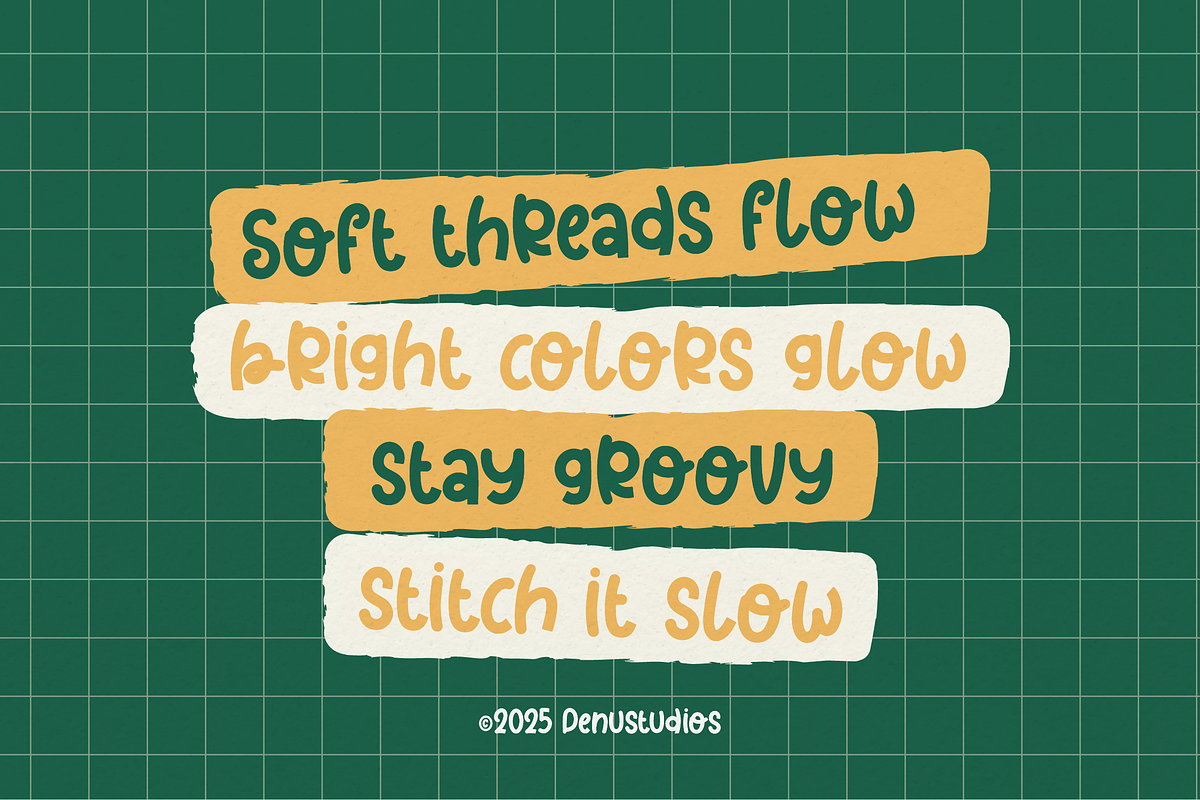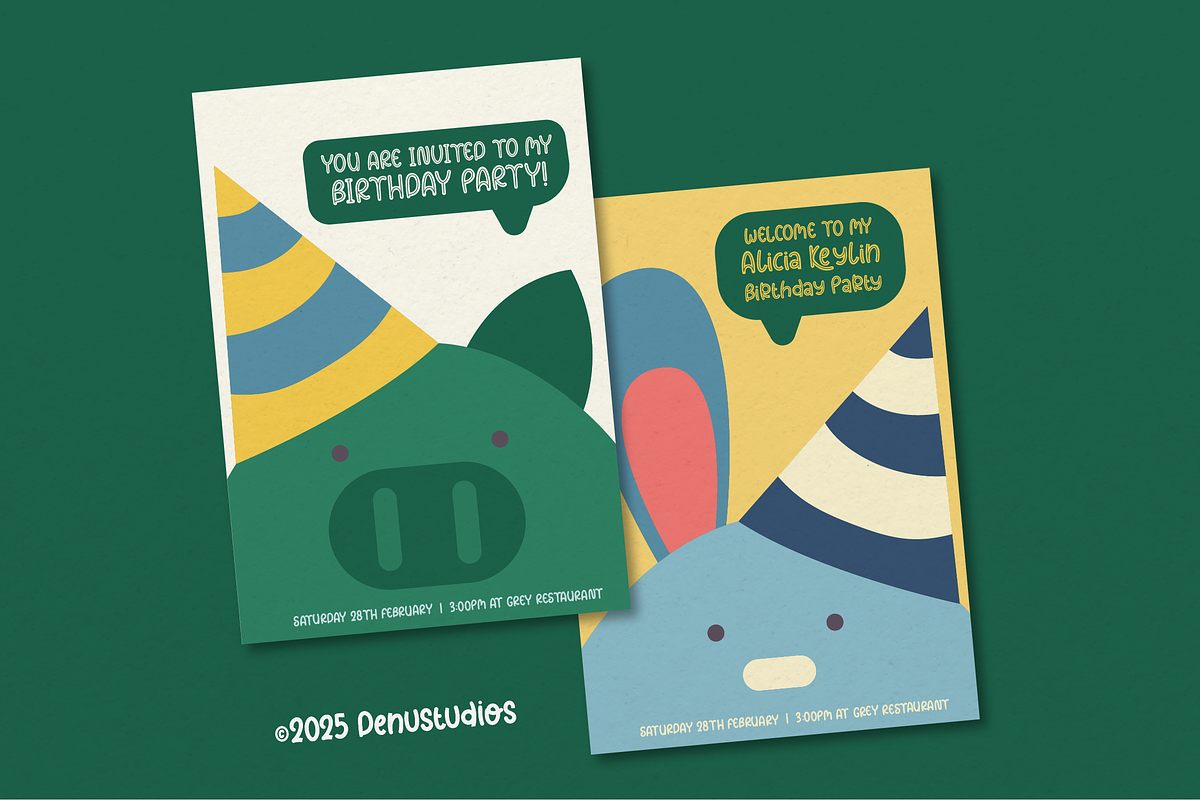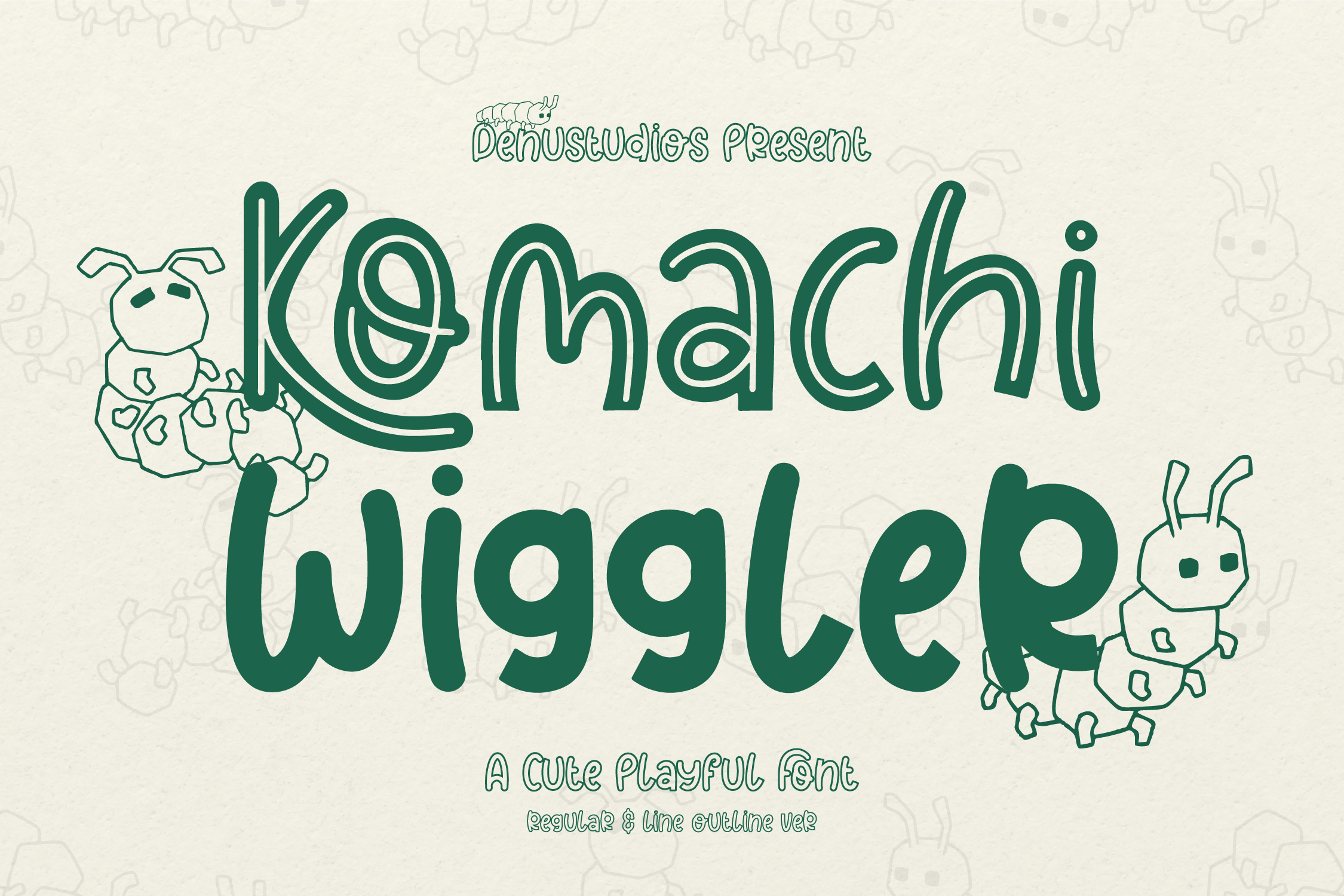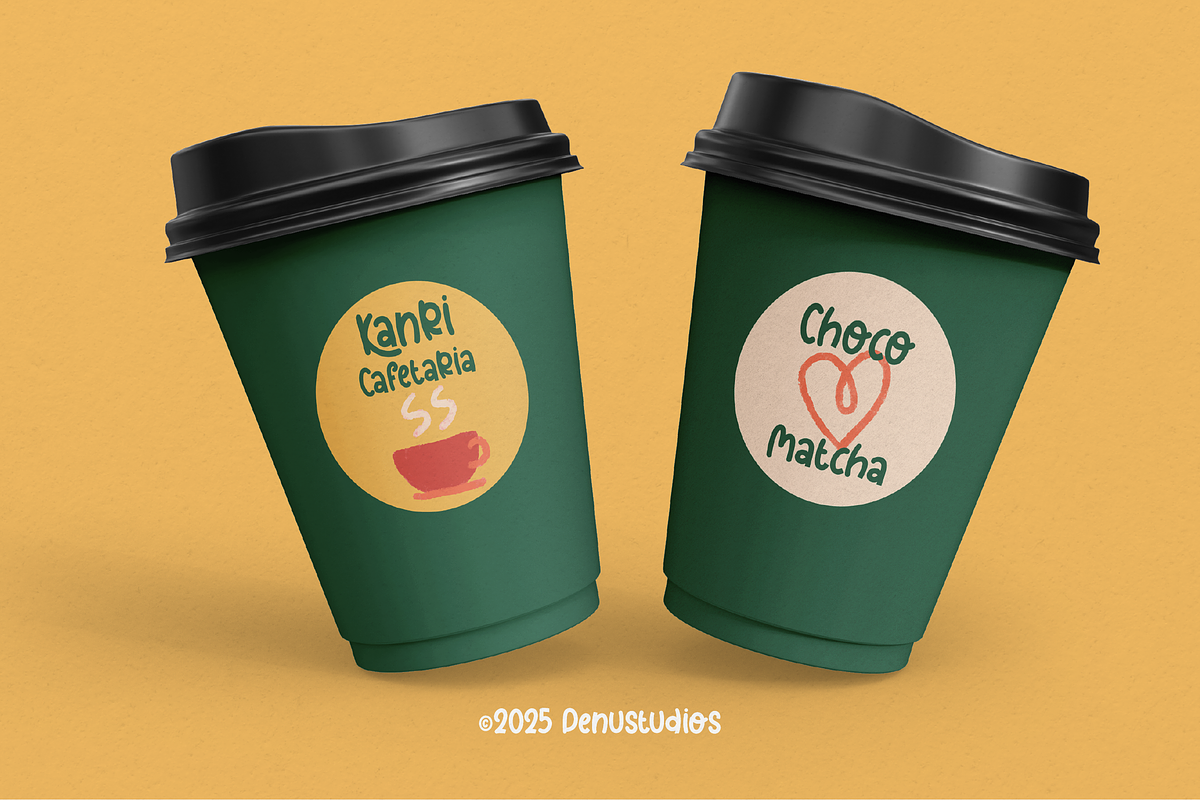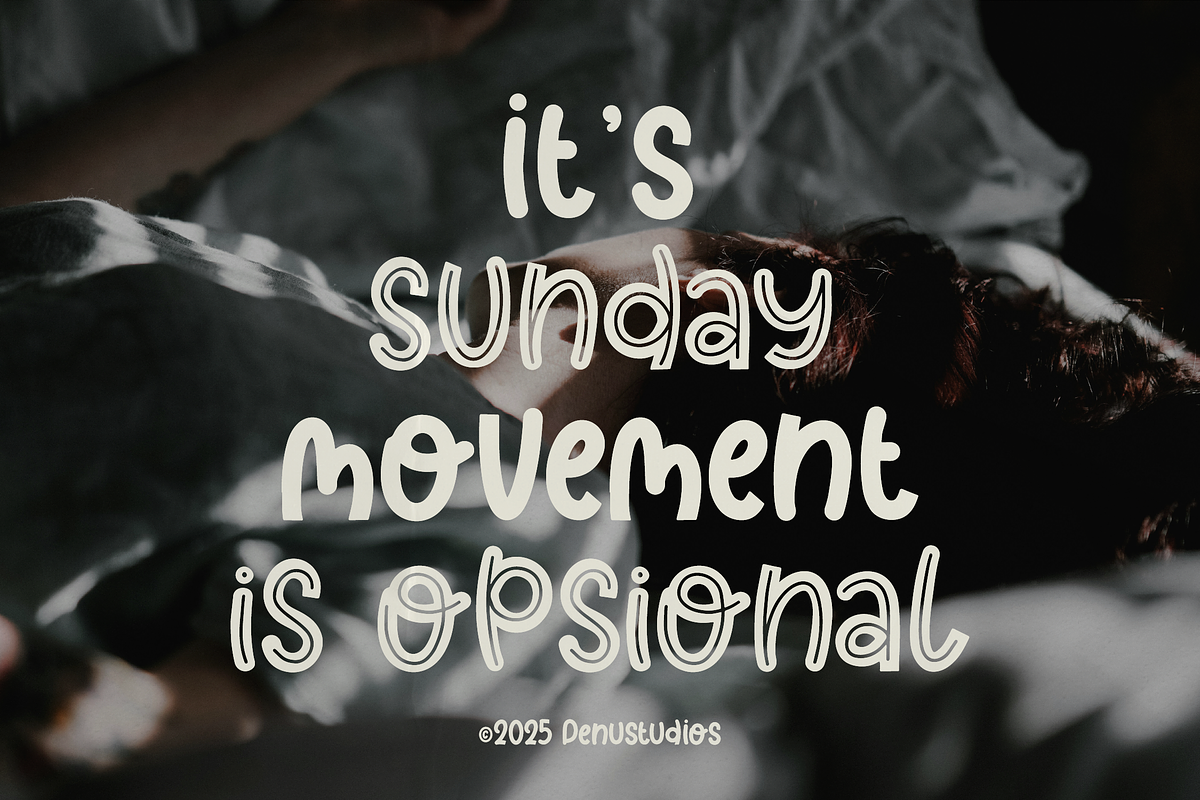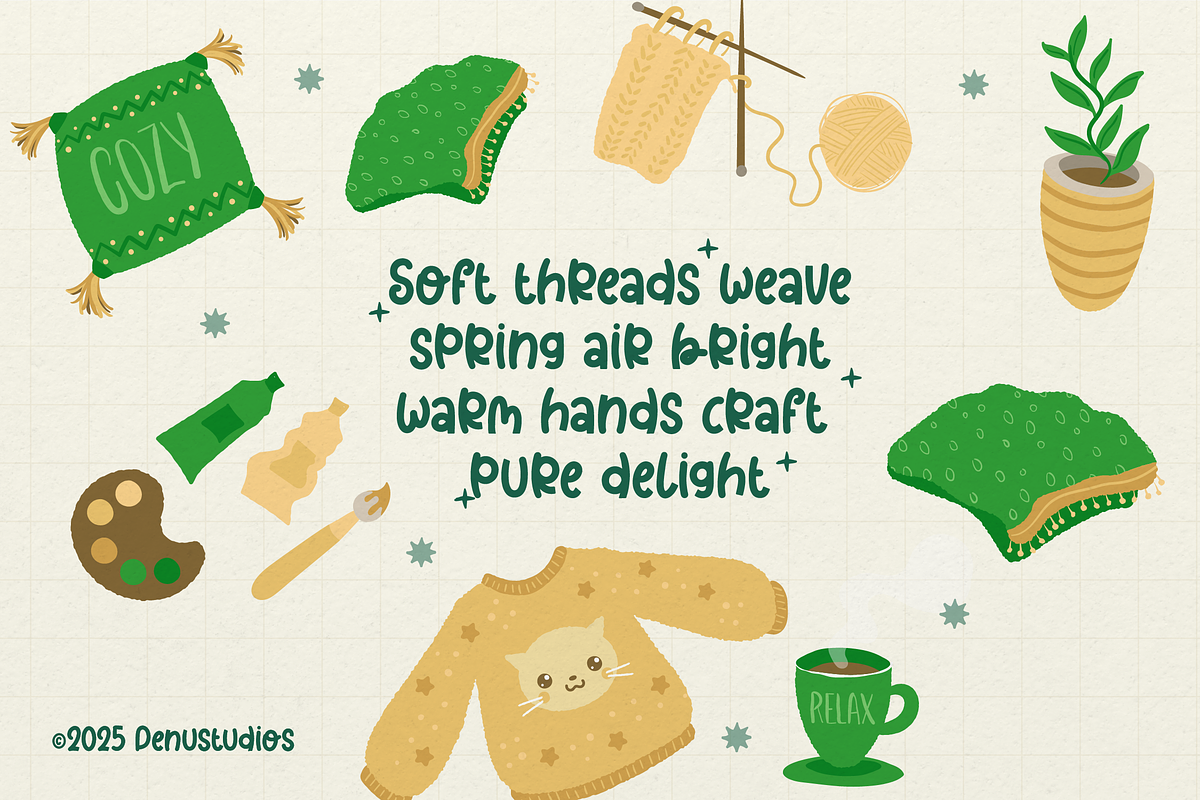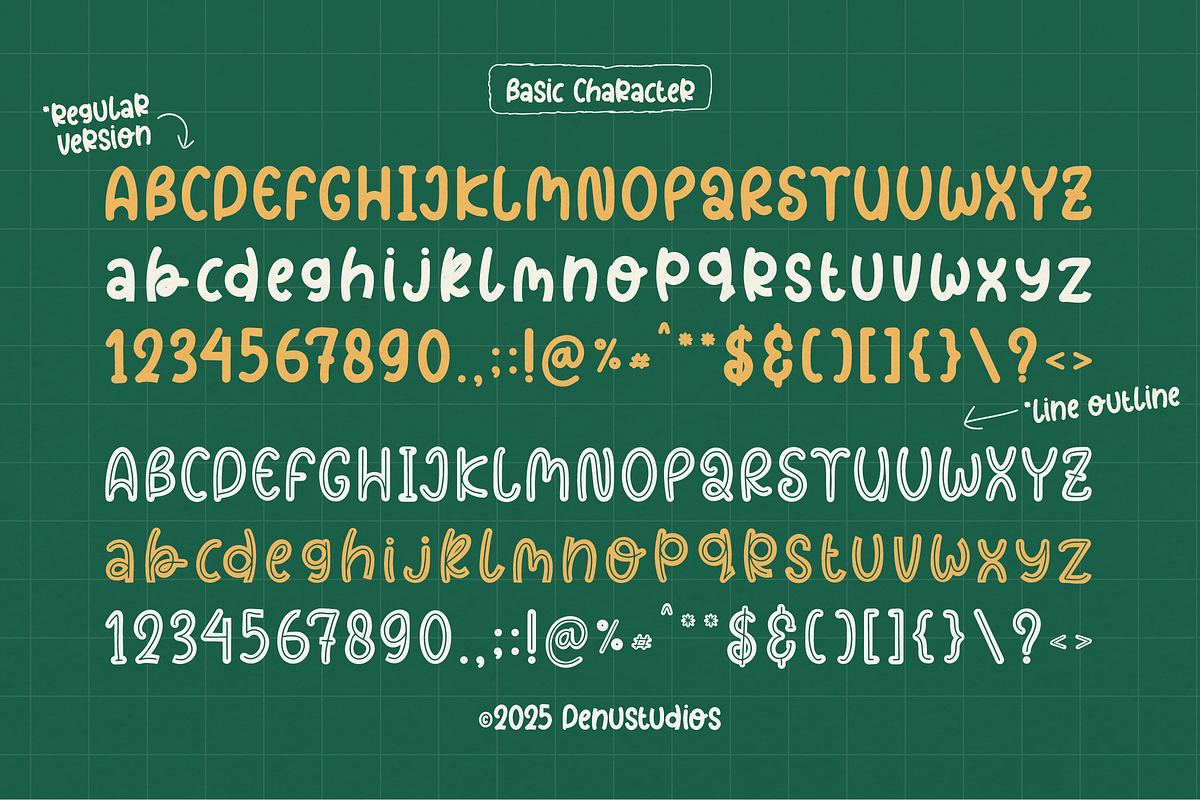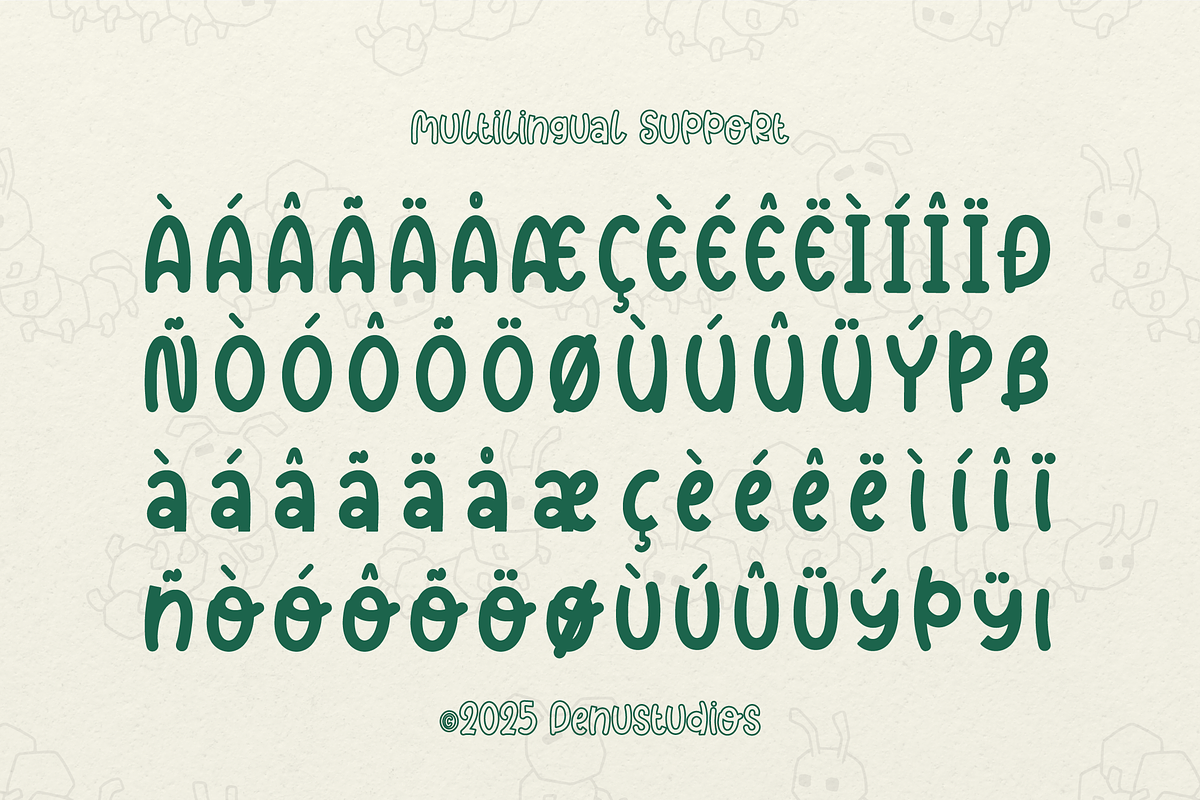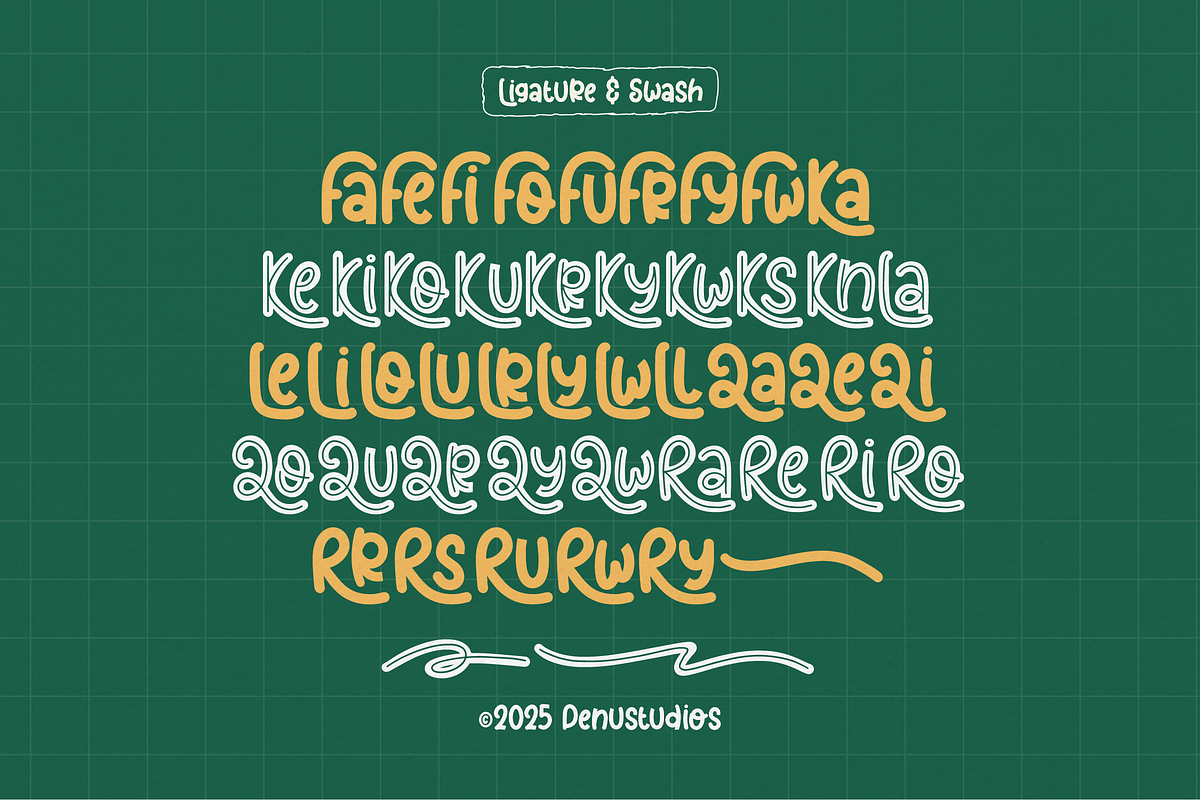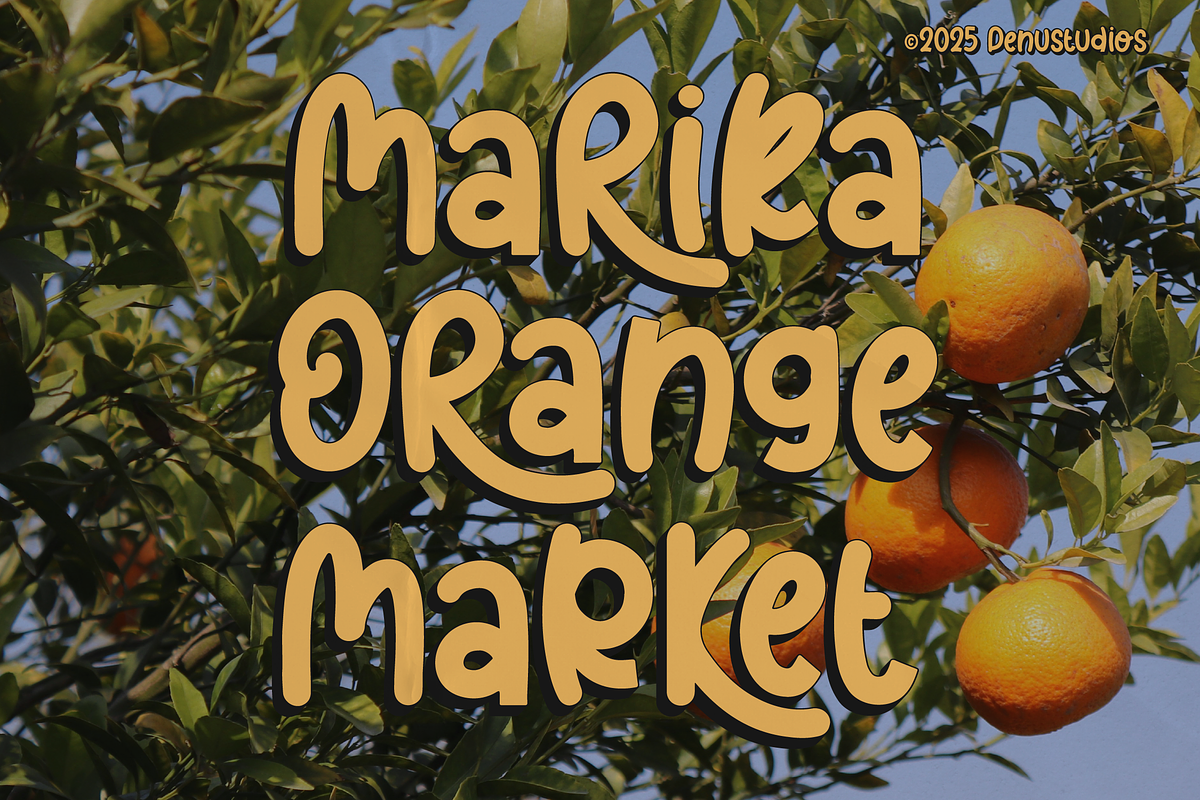
Komachi Wiggler | Cute Playful Font
Komachi Wiggler | Cute Playful Font, from Denustudios, suitable for any projects such as: logos, branding projects, homeware designs, product packaging, mugs, quotes, posters, shopping bags, t-shirts, book covers, name card, invitation cards, greeting cards, label, photography, watermark, special events, and all your other lovely projects that need a Cute Playful Font taste.